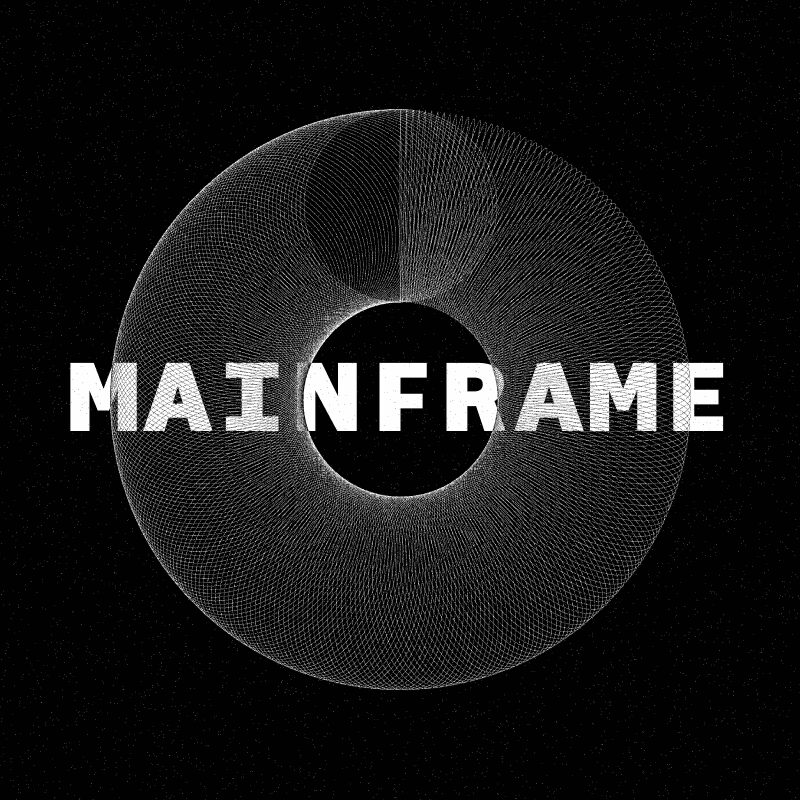
Mainframe font, designed by Tyler Finck, is a semi-light fixed width typeface that boasts of its semi-expanded width. This contemporary font lends itself perfectly to tech-based projects such as coding and programming. However, it's also suitable for diverse branding projects that require a modern and sophisticated touch. Mainframe's unique character and legibility make it an excellent choice for web design, software development, digital advertising campaigns, and much more. With its sleek style and distinctive charm, this font is sure to leave a lasting impression on your audience.
This is the Regular weight of Mainframe, a monospace typeface with 7 total weights (with italics).